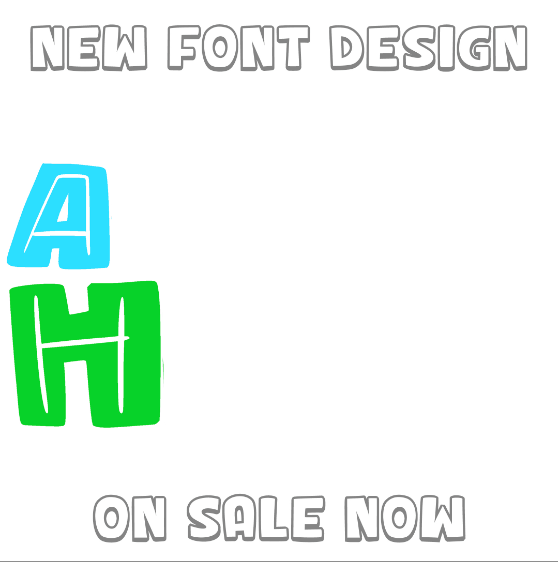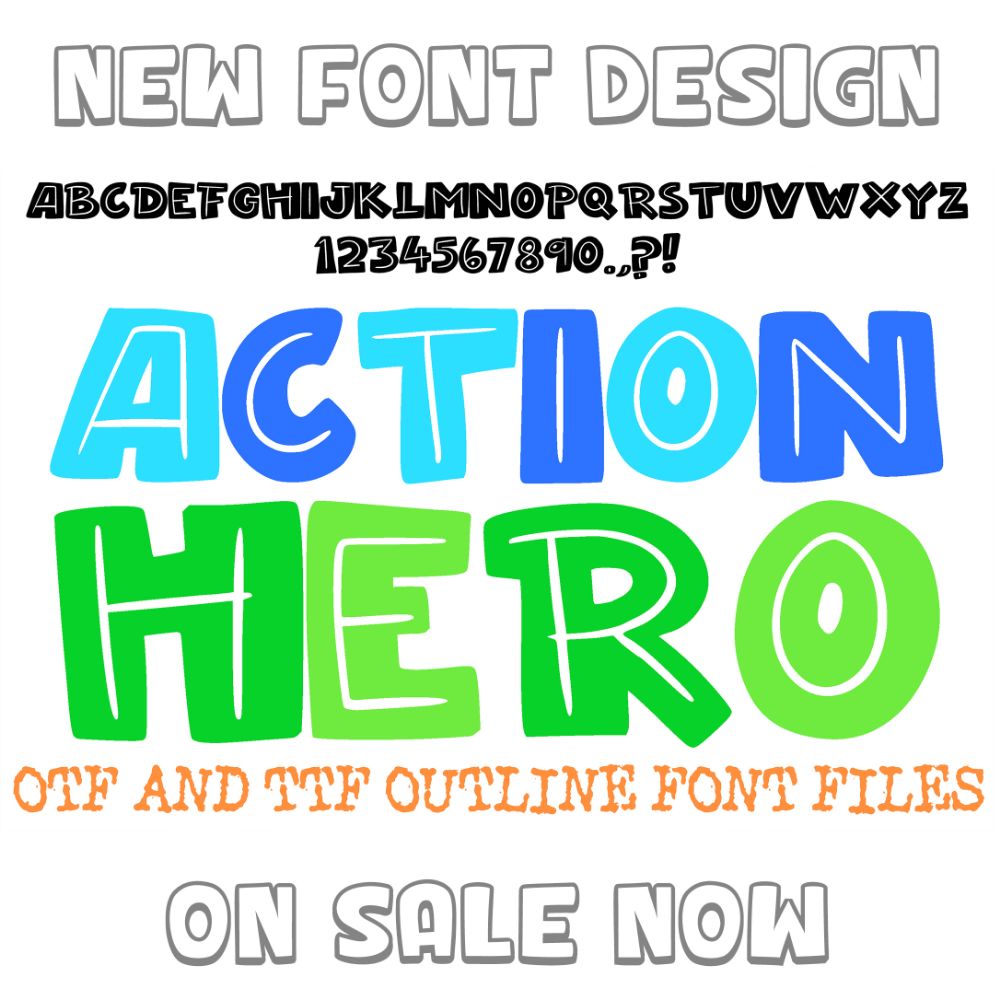
Action Hero Font
Action Hero Lettering Font Cartoon Handwriting ABC OTF Type by Squeeb Creative
ACTION HERO! A fun little cartoon comic font that would feel at home in The Beano or Buster (showing my age there)